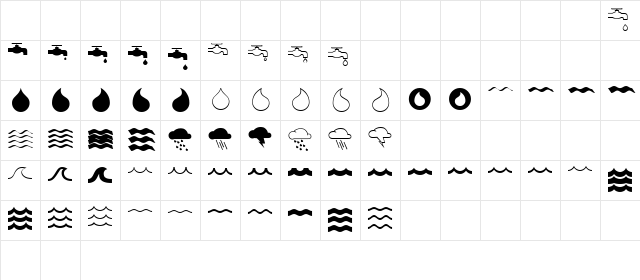
MostlyWaves Regular Free Font
MostlyWaves Regular
Design Context for MostlyWaves
MostlyWaves is a composed and adaptable typeface that performs quietly and consistently across a wide range of design contexts.
Pro Tip: Use MostlyWaves in both headline and body roles to test its range before committing to a single application.